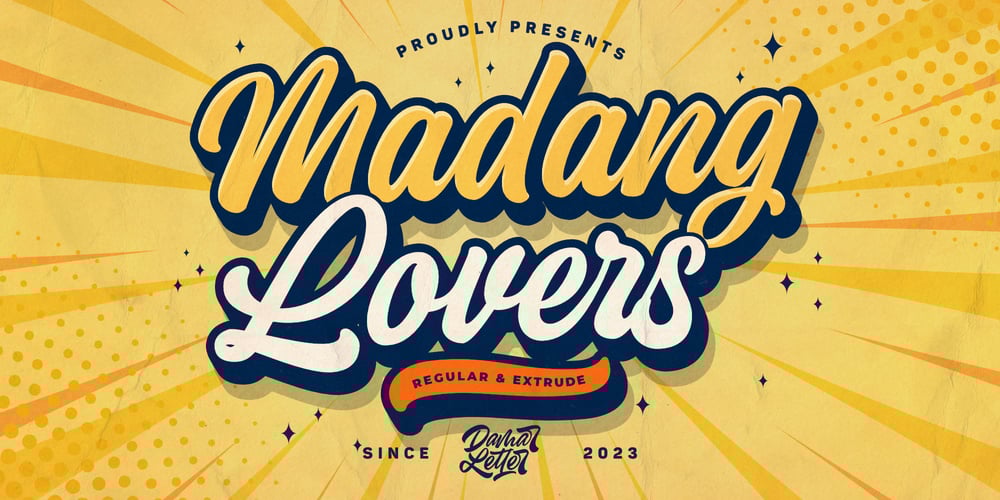
Madang Lovers
Madang Lovers font
Madang Lovers Font Family was designed by Ardian Nuvianto and published by Ardian Nuvianto. Madang Lovers contains 2 styles and family package options. Madang Lovers is a lovely script font with a cute feel. Get inspired by its nostalgic charm!